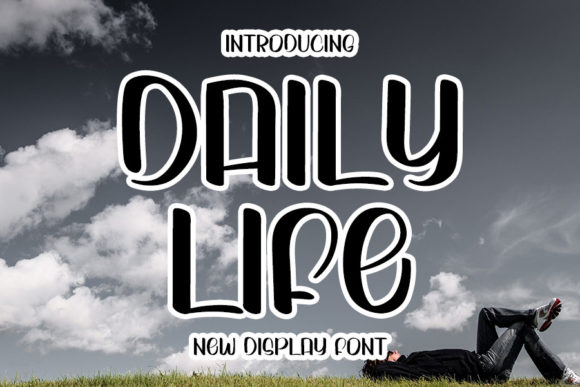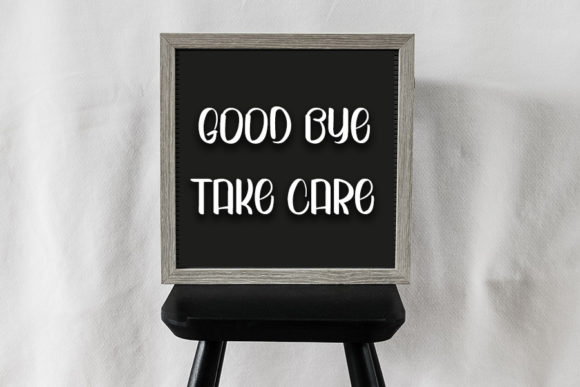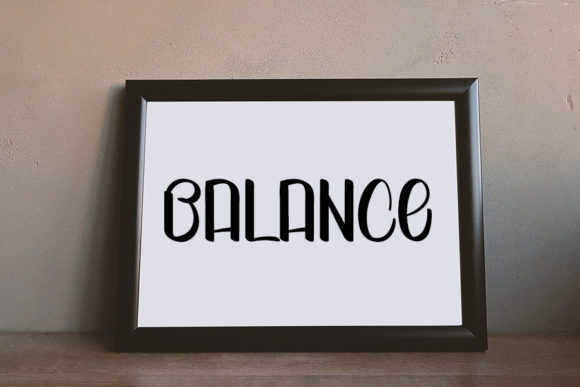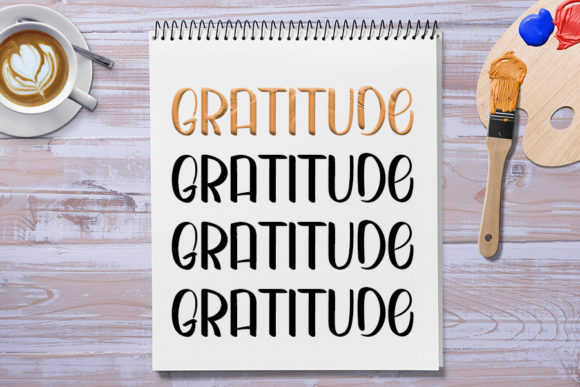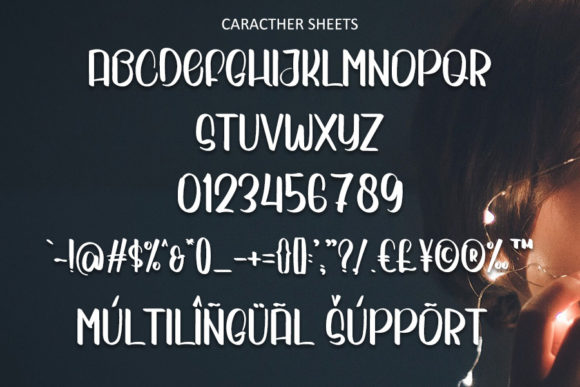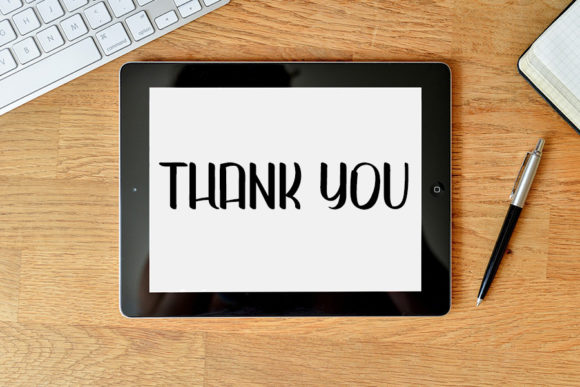
Daily Life Font
About Daily Life Font
Daily Life is a smart and fun handwritten font with an impeccable form, inspired by a chic calligraphy. Balanced and varied, this font was designed to enhance the beauty of your projects.